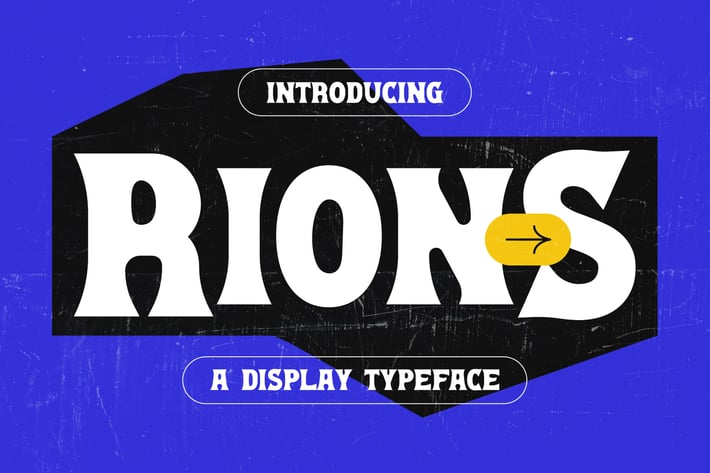
Rions – Bold Display Typeface
Rions is a bold and expressive display typeface, crafted to make a strong visual impact. With its thick, dynamic letterforms and playful details, this font is perfect for eye-catching designs. Rions includes small caps, providing additional versatility for creative typography. Whether for posters, headlines, branding, or editorial projects, Rions brings a bold and charismatic touch.
- Unique small caps for enhanced typographic flexibility
- Strong and bold display style
- Perfect for posters, branding, and editorial design